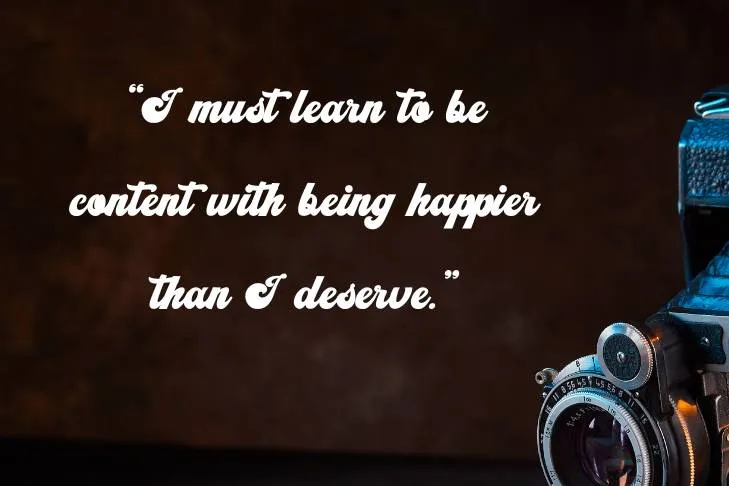
In this post we are going to introduce Vintage King Font. It is a classic bold Script font that is available in both elegant and rough versions. Vibrant typography combined with vintage writing and typography from the 1970s and 1980s. This retro-style typeface is devised by PutraCetol Studio. For vintage and retro designs, badges, logos, t-shirts, posters, branding, packaging, signage, book covers, and much more, Vintage King is ideal.
More Ways to Use Vintage King Font
The use of fonts is crucial to a brand’s visual representation. A brand may stand out and be remembered because of Vintage King’s distinctive aesthetic. Advertisement headlines and taglines need to grab the reader’s attention right away. Therefore, to give a pinch of originality, this traditional typeface is implemented.
This elegant font has a standout look or style that tempts designers to use it. This beautiful typeface is simple to read, especially when used for lengthy passages of text. Additionally, it has a large selection of characters and ligatures, has a generator tool, and supports multilingual characters, all of which add to its uniqueness and appeal.
Additionally, depending on the subject matter, this great font could be utilized in magazine layouts, book covers, and other editorial projects to portray a particular mood or style. It’s important to keep in mind that various designers could have different opinions on how to use Vintage King or any other typeface. The scenario and idea of the design should be meticulously considered as these are the most crucial factors.
Vintage King Font Pairing
Following are the first that are pretty similar to this multifaceted typeface:
Style | Script |
What type of font is the Vintage King Font?
It is a classic bold Script font that is available in both elegant and rough versions. Vibrant typography combined with vintage writing and typography from the 1970s and 1980s. This retro-style typeface is devised by PutraCetol Studio.
Where can I apply the Vintage King Font?
The use of fonts is crucial to a brand’s visual representation. A brand may stand out and be remembered because of Vintage King’s distinctive aesthetic. Advertisement headlines and taglines need to grab the reader’s attention right away. Therefore, to give a pinch of originality, this traditional typeface is implemented.